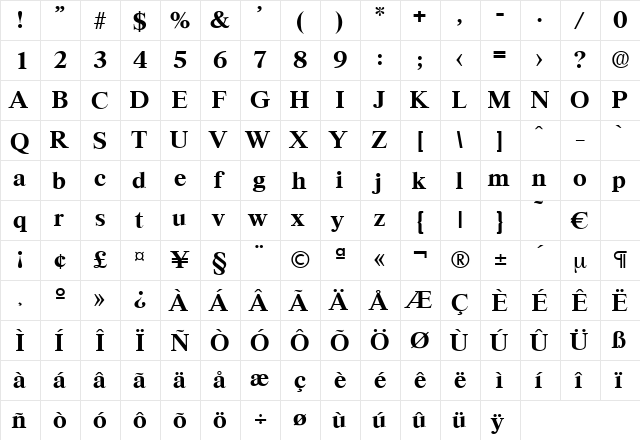
Riccione-DemiBold Regular
Design Context for Riccione-DemiBold Typeface
Riccione-DemiBold offers clean, dependable letterforms without strong stylistic allegiance, making it a practical choice for designers who need flexibility. Its bold stroke weight gives it real presence on the page.